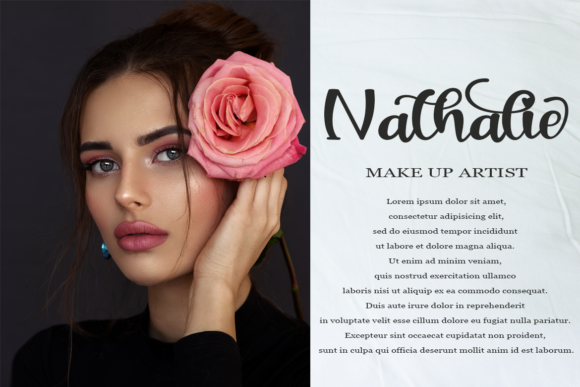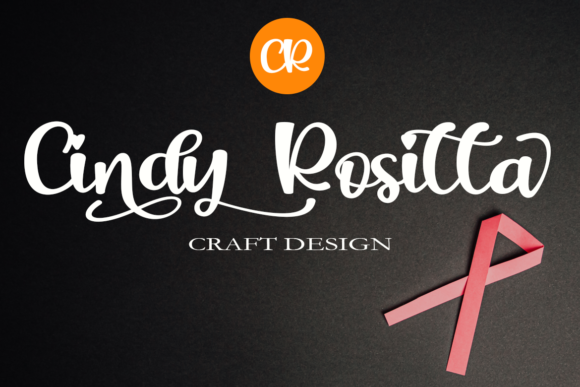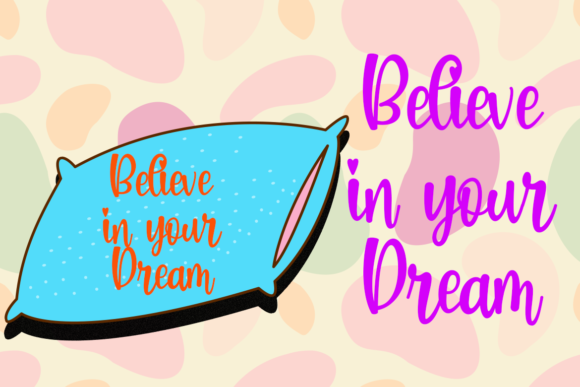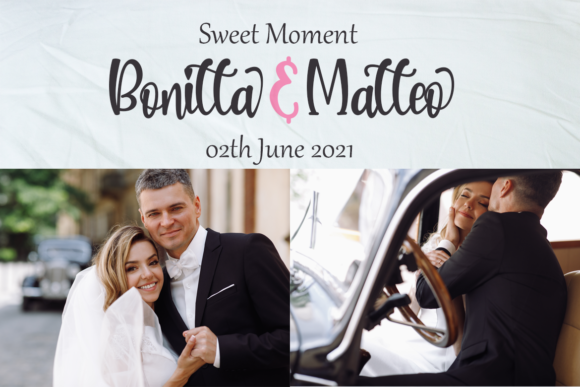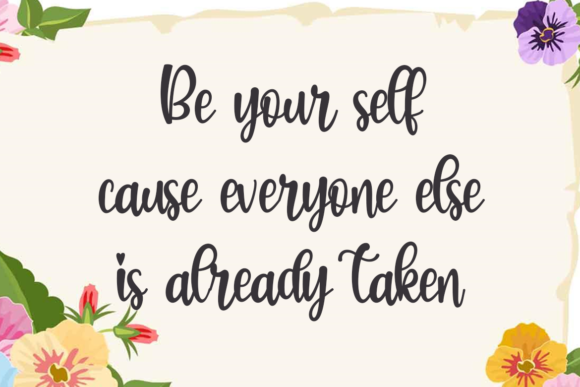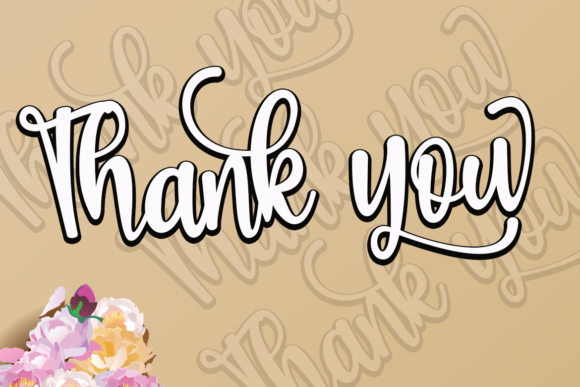
Introduction to Kamuflase Font Font
Fonts play a crucial role in design, and the Kamuflase Font font is a typeface that brings both character and versatility to any project. Whether you’re working on a branding project, a website, or a print design, the Kamuflase Font font offers a unique style that can elevate your work.
Kamuflase is a beautiful and quirky handwritten font.
Whether you are using it for cartoon-related designs, childrenβs games, quotes, titles, brand names, book covers, posters, or just any creation that requires a touch of beauty, this font is a great choice .
The Kamuflase Font font is more than just a typeface β it’s a design tool that helps you communicate your message with style and clarity. Its unique character set and versatile design make it suitable for a wide range of applications, from elegant invitations to bold headlines.
With its carefully crafted letterforms and balanced proportions, the Kamuflase Font font ensures readability and visual appeal across all mediums.
The Kamuflase Font font stands out with its unique design, exceptional readability, and versatility across various design applications.